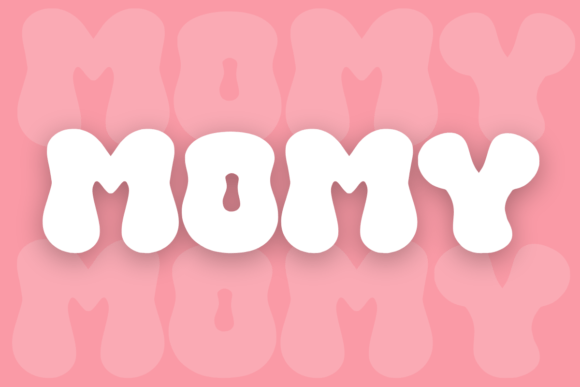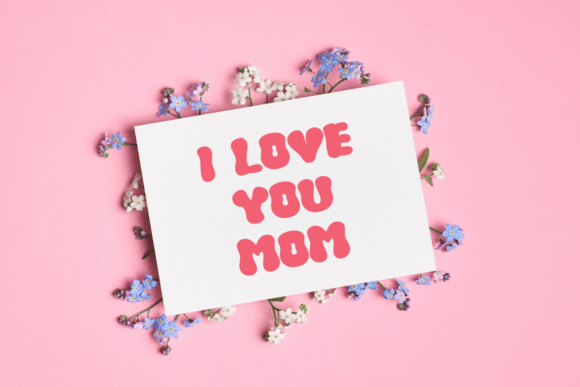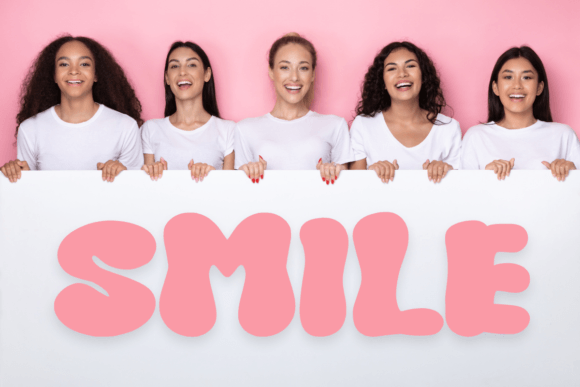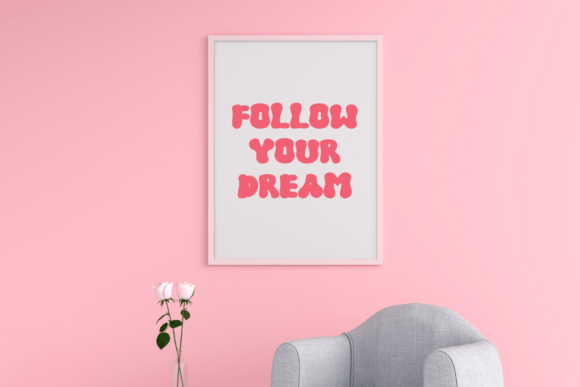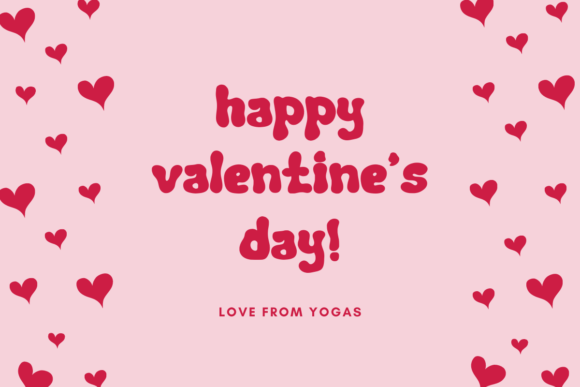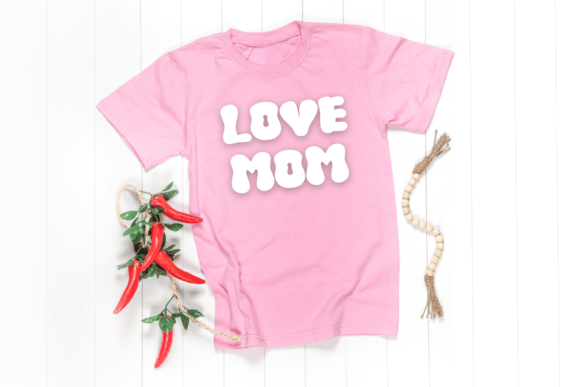
Introduction to Retro Meow Font
Have you ever been stuck on a design project, searching for that perfect font to give it that extra oomph? I know I have. There’s nothing quite like the feeling of finally stumbling upon the perfect design resource, and that’s exactly what I did when I discovered the Retro Meow Font. Its unique blend of vintage charm and modern whimsy makes it the perfect addition to any creative project.
Whether you’re working on a greeting card, a news headline, or even a social media graphic, the Retro Meow Font is sure to bring a touch of romance and sophistication to your design. And the best part? It’s completely free to download, making it a valuable resource for designers of all levels.
With its high-quality design and transparent background, the Retro Meow Font is a versatile and stylish addition to any project. So why settle for a generic font when you can add a little bit of Retro Meow magic to your design?
Key Features of Retro Meow Font
- Retro aesthetic with a nostalgic feel, perfect for vintage-themed creative projects.
- Comes with a transparent background, allowing for seamless integration into any design.
- Includes a range of glyphs and characters, making it suitable for a variety of creative applications.
- Designed with a bold, playful style that adds a touch of whimsy to any design, perfect for logos, branding, and more.
Honest Review: Retro Meow Font
I recently had the chance to work with the Retro Meow Font, and I’m excited to share my honest thoughts. As a designer, I appreciate high-quality fonts that can elevate a creative project. The Retro Meow Font definitely delivers in this department.
What works well: ✨ The font has a unique, playful style that’s perfect for projects that need a touch of nostalgia. The character set is comprehensive, making it easy to find the perfect letter or symbol. I also appreciate that the font is available for free download, which is a great resource for designers on a budget.
- High quality and detailed design
- Unique and playful style
- Comprehensive character set
One potential limitation is that the font may not be suitable for projects that require a transparent background. In some cases, the design elements may not be as crisp or clear as desired. However, this is a minor concern for most designers.
Overall, I’m impressed with the Retro Meow Font. It’s a great addition to any designer’s toolkit, and I’m confident it will be a valuable resource for many creative projects.
Tips for Getting the Most Out of Retro Meow Font
For the best results, use Retro Meow Font with a transparent background to create a seamless look. Experiment with different font sizes and colors to add visual interest to your designs.
The Retro Meow Font is perfect for any creative project, including social media graphics, blog posts, and marketing materials. Its unique and playful style makes it a great choice for branding and packaging designs.